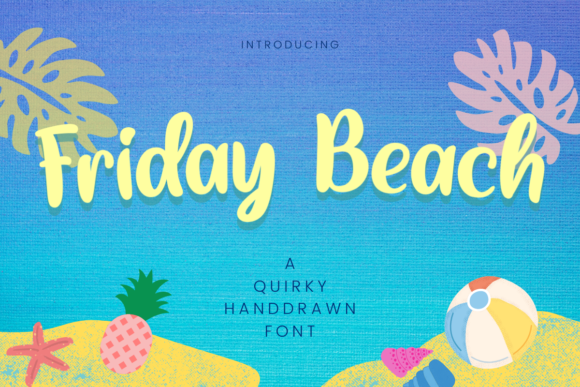
Dive into the realm of creativity with Friday Beach Font, a script font that exudes simplicity and charm. Its playful, handwritten characters dance across your screen, carrying your words with a touch of elegance.
Friday Beach Font is not your average font. It's a font that speaks to your soul, a font that captures the essence of your creative spirit. Whether you're a seasoned designer or just starting, Friday Beach Font is your perfect companion.
With Friday Beach Font, your words take on a new life, a new vibrancy. They leap off the page, capturing hearts and minds with their charm. It's a font that transforms the ordinary into the extraordinary, the dull into the delightful.
Friday Beach Font is more than just a font, it's an extension of your creativity. It's a brushstroke that paints your ideas into existence, a melody that sings your words into life. It's a font that turns your dreams into reality.
So, embark on a creative journey with Friday Beach Font, let your imagination run wild, and create something truly special. The possibilities are endless, the magic is in your hands.